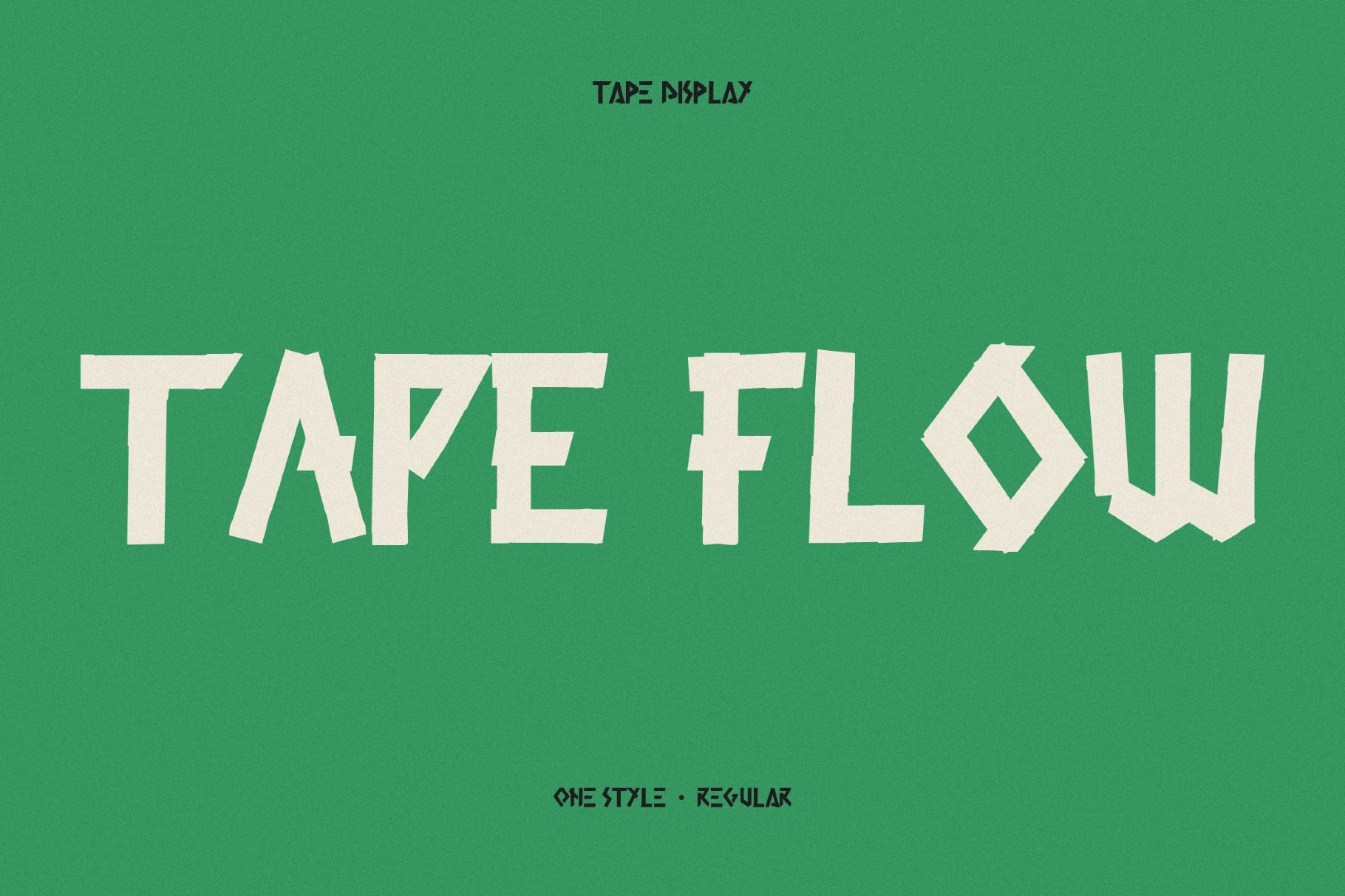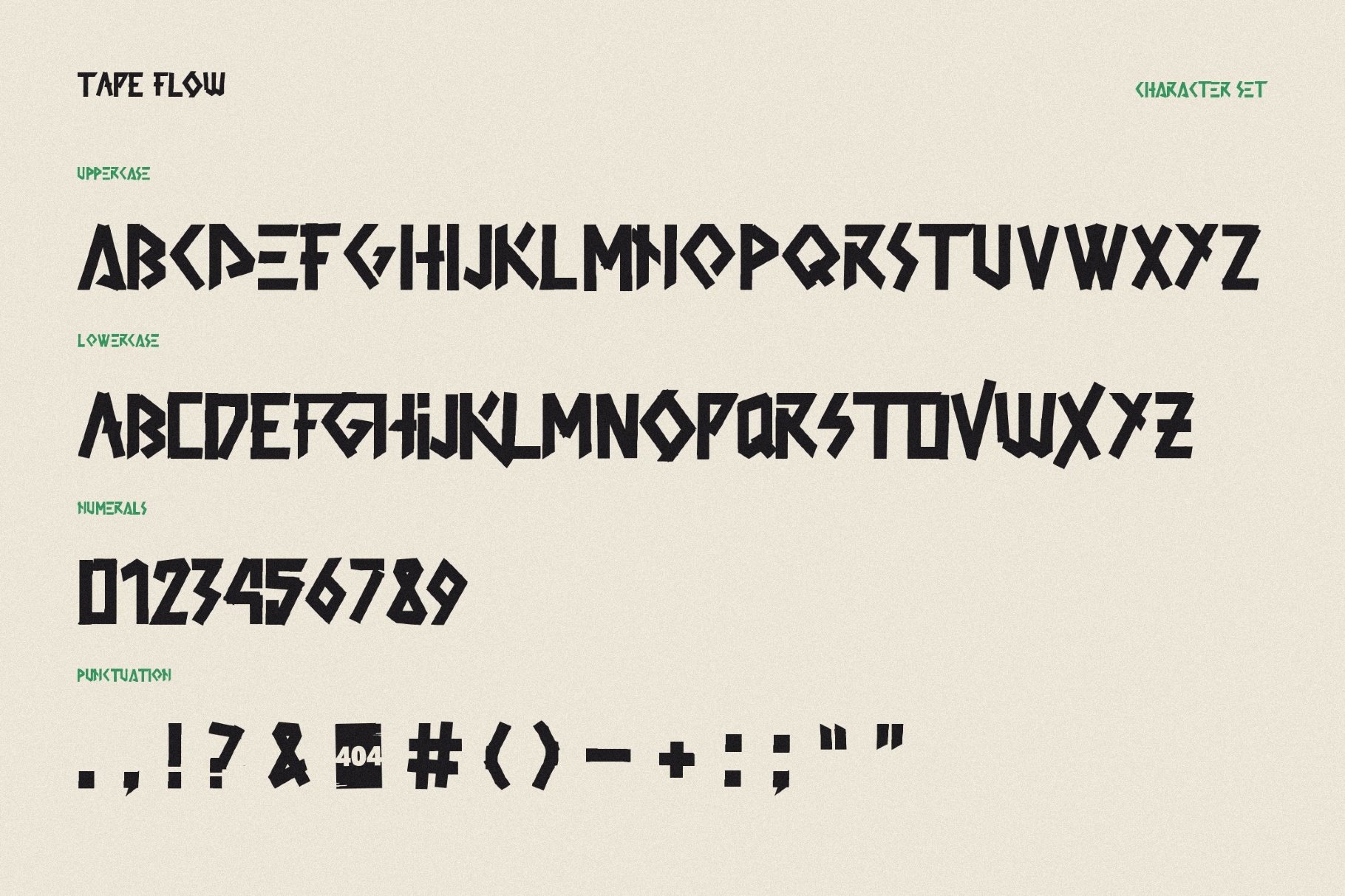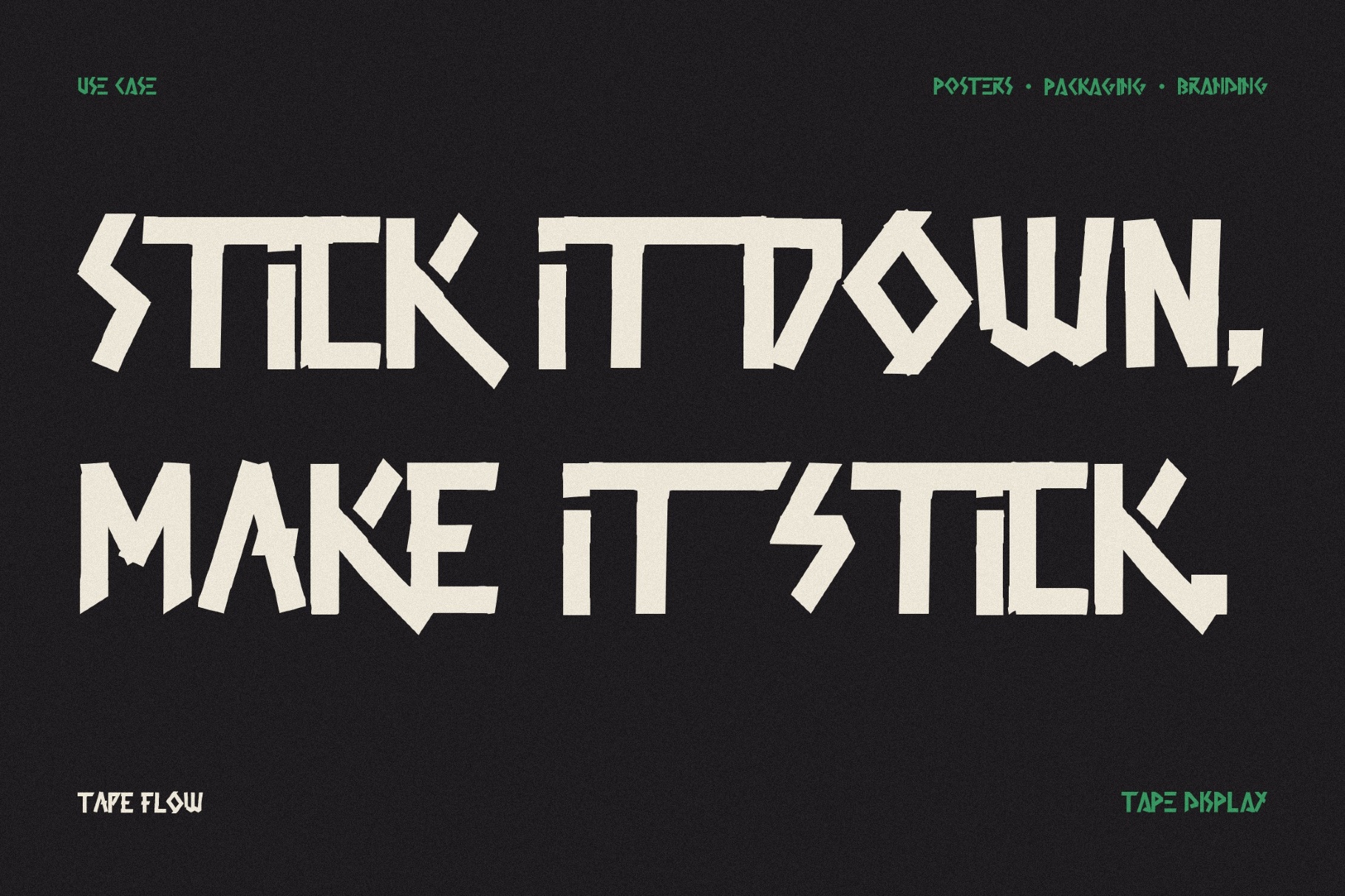
Tape Flow Punk Font
When you are looking for something that is assembled rather than drawn, as if each letter was cut from strips and pasted into place, you have Tape Flow. The fractured block shapes, distressed texture, and sharp geometric rhythm bring together post-punk record sleeves, Xeroxed gig posters, and Constructivist collages.
It works well for album covers, streetwear graphics, skate branding, festival posters, game titles, merch labels, and social media banners.
• 2 sets of uppercase Latin letters.
• numbers, punctuation, and symbols;
• multilingual support across the basic Latin scripts.